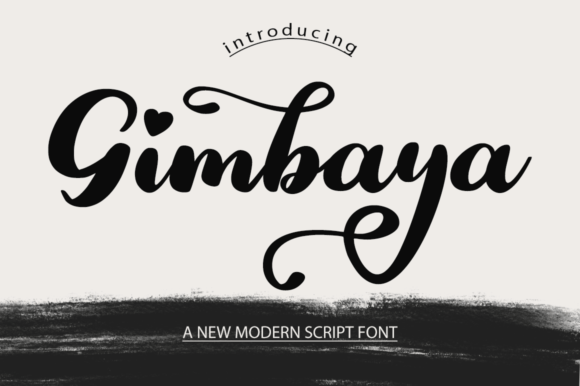
Introducing Gimbaya Font: A Bewitching Script for Your Halloween Designs
Unleash the magic of Halloween with Gimbaya Font, a hauntingly beautiful calligraphy font that will cast a spell on your designs. Let your creativity run wild as you conjure up eye-catching logos, product packaging, wedding invitations, and more with this spellbinding script.
Gimbaya's elegantly flowing curves and bewitching swashes will add a touch of mystique to your Halloween posters, signage, and labels. Imagine your designs adorned with this enchanting script, captivating the attention of all who lay their eyes upon them.
With Gimbaya's PUA encoding, you'll have effortless access to a treasure trove of glyphs and swashes, allowing you to conjure up an infinite array of captivating designs. Unleash your imagination and let Gimbaya be your magic wand, transforming your creative visions into mesmerizing realities.
Gimbaya: The Font That Will Hauntingly Beautify Your Halloween Creations
Prepare to be captivated by Gimbaya Font, a spellbinding script that will cast its enchanting allure over your Halloween designs. Its elegant curves and bewitching swashes will conjure up an atmosphere of mystery and intrigue, leaving your audience under its captivating spell.
With Gimbaya, you'll have the power to create logos that radiate an aura of enchantment, product packaging that exudes a sense of sophistication, and wedding invitations that speak of a love story straight out of a fairy tale. Unleash the magic of Gimbaya and watch as your designs transform into captivating works of art.
This Halloween, let Gimbaya be your creative ally, guiding you toward designs that are both hauntingly beautiful and irresistibly captivating.